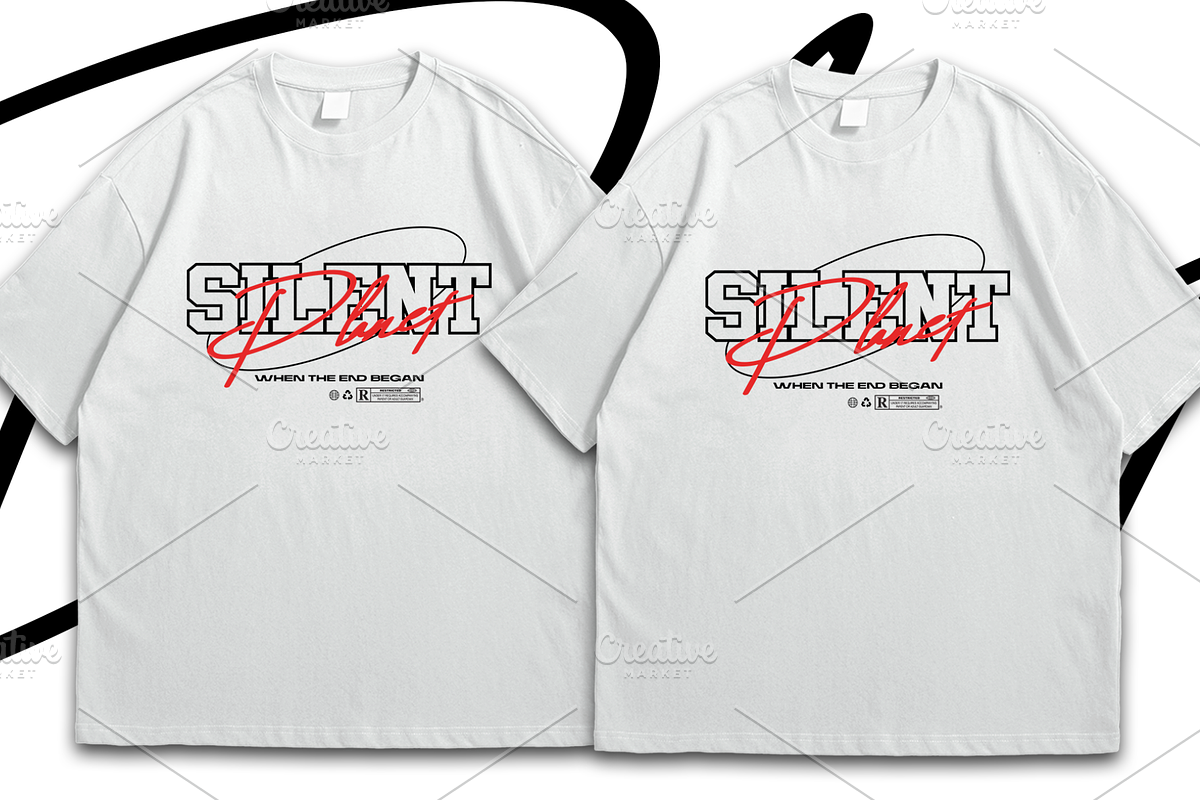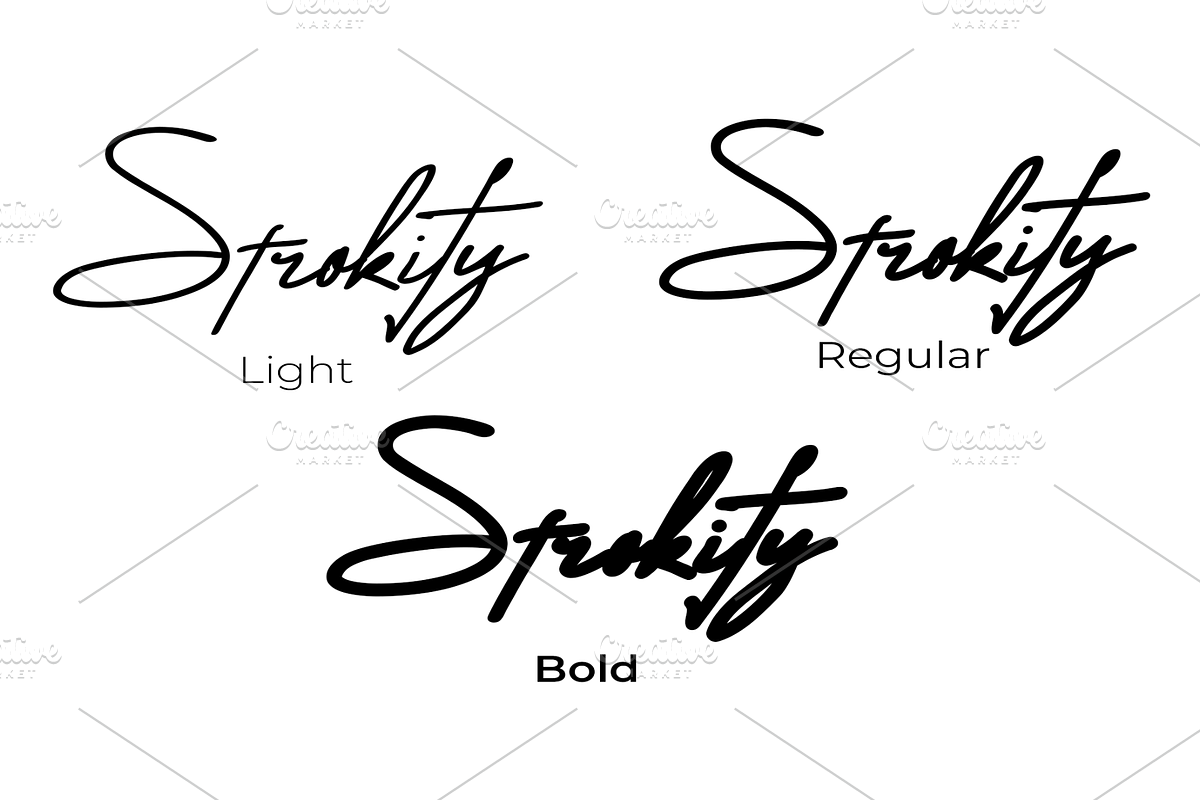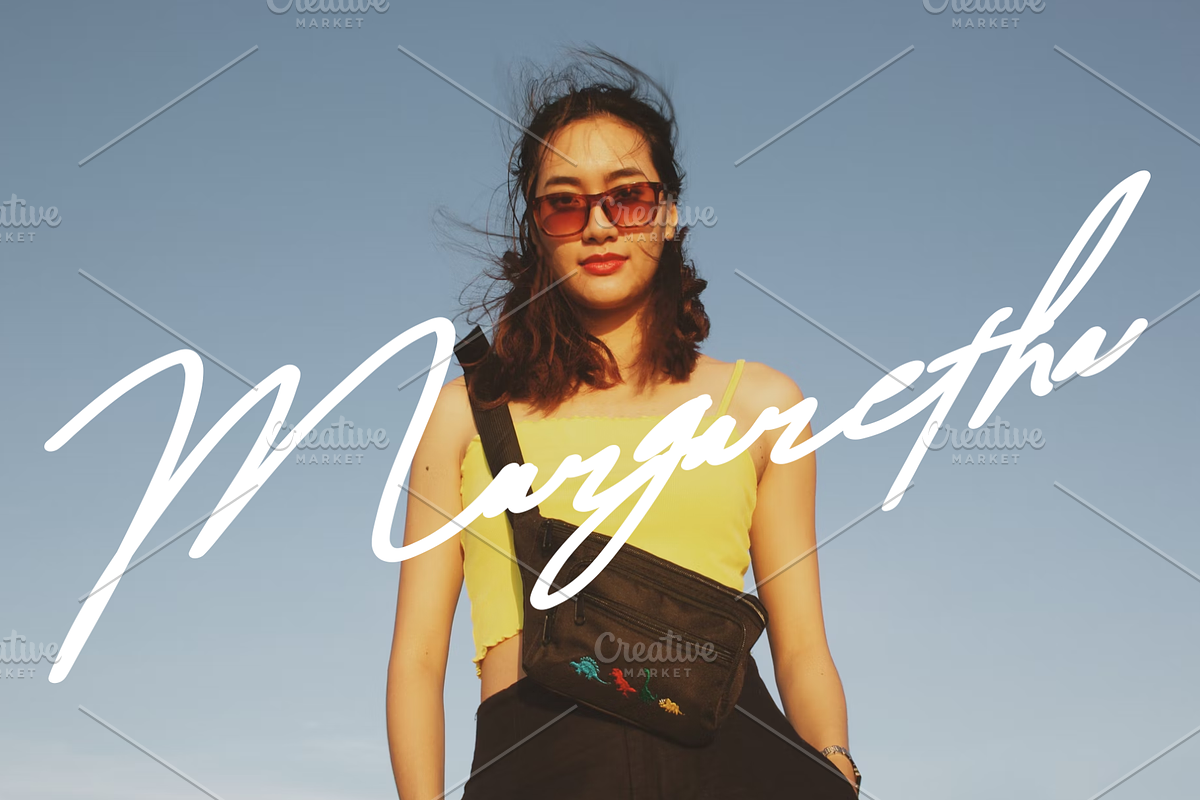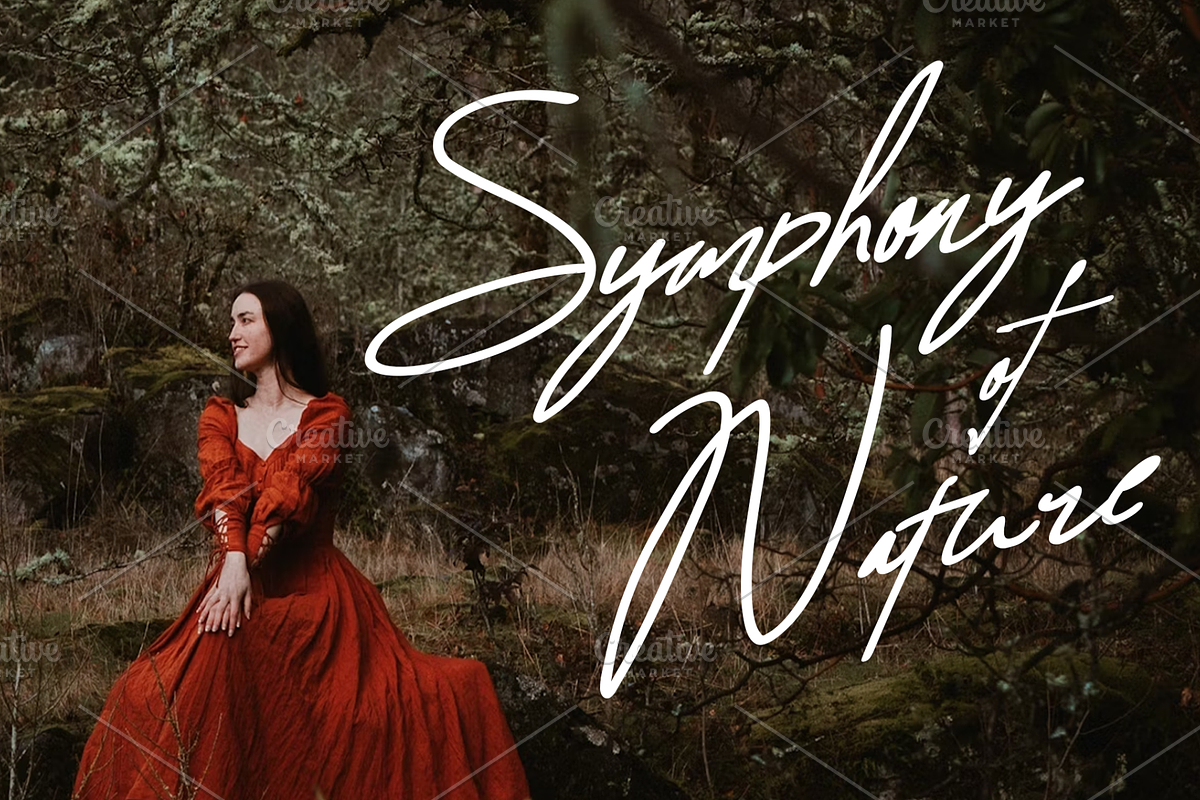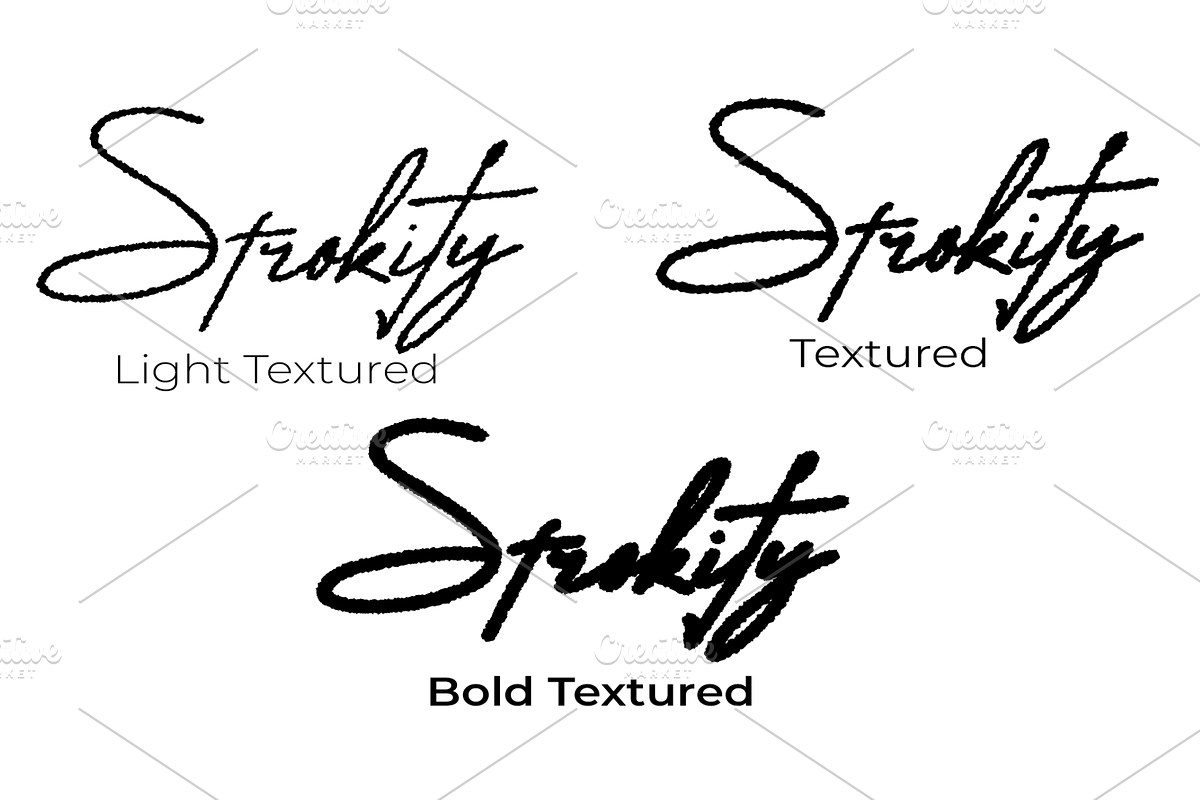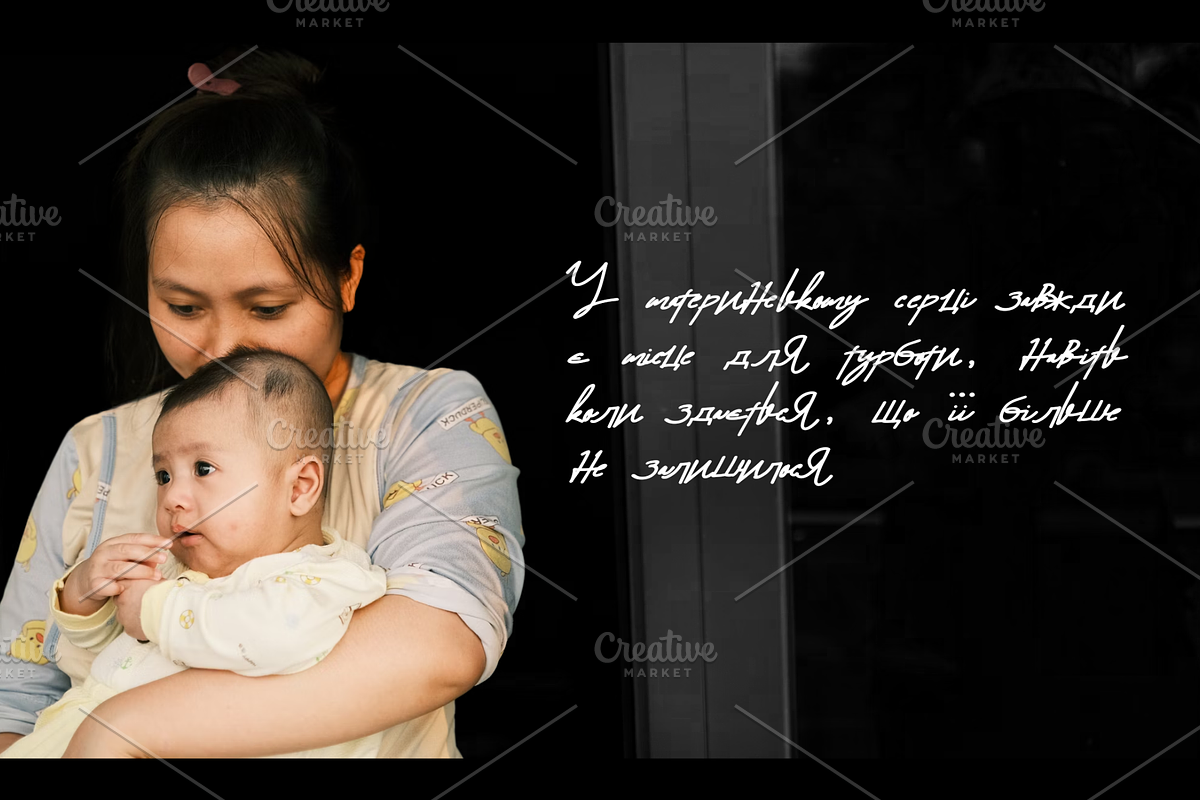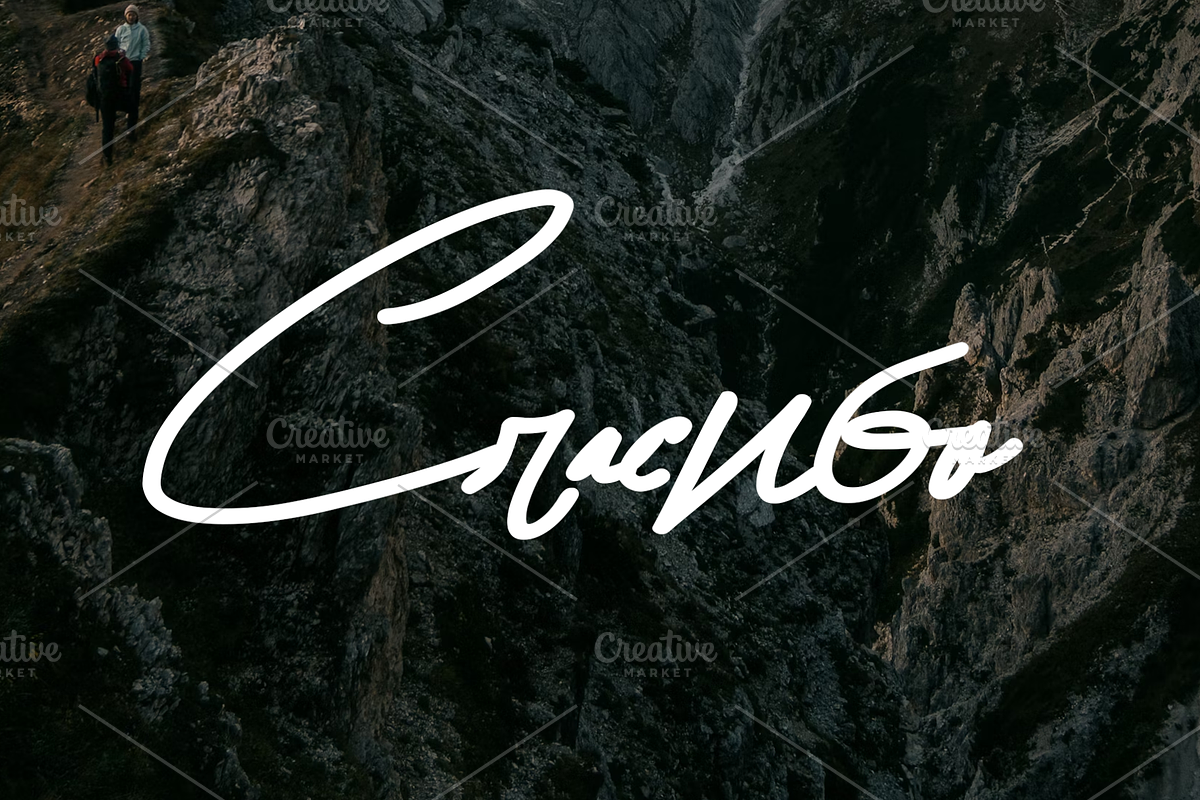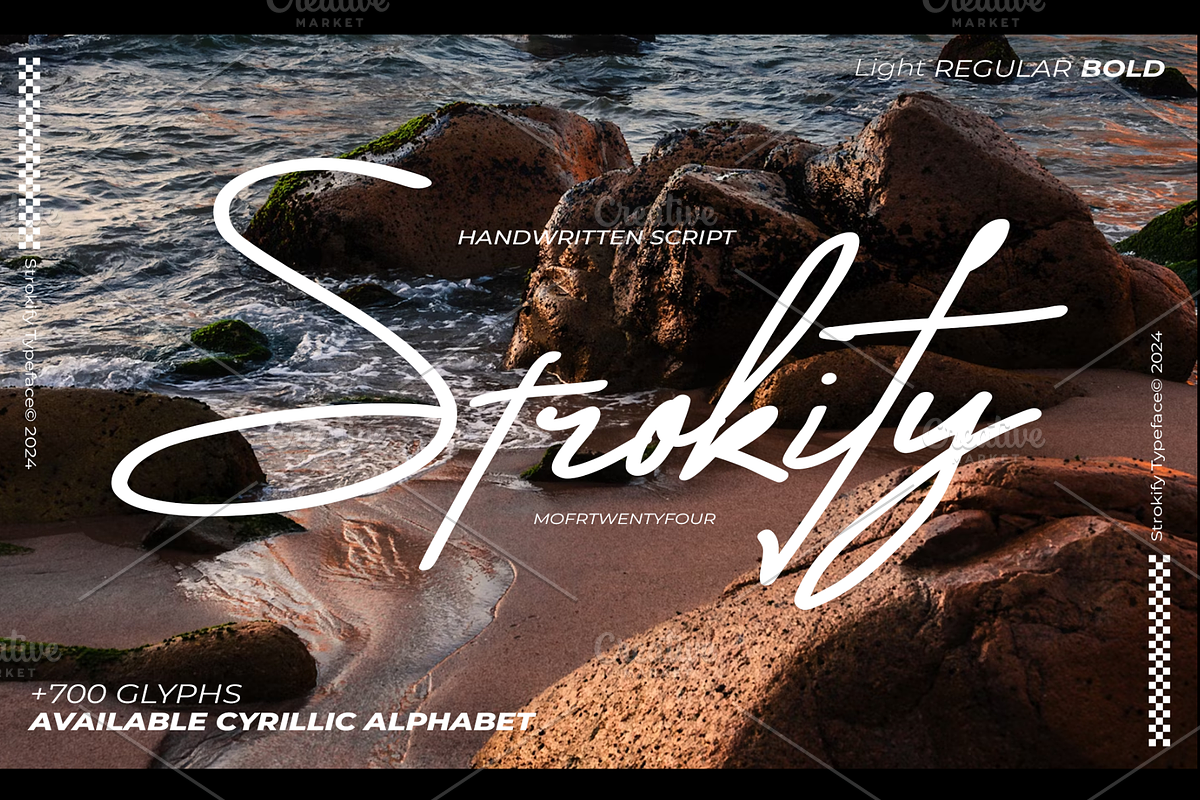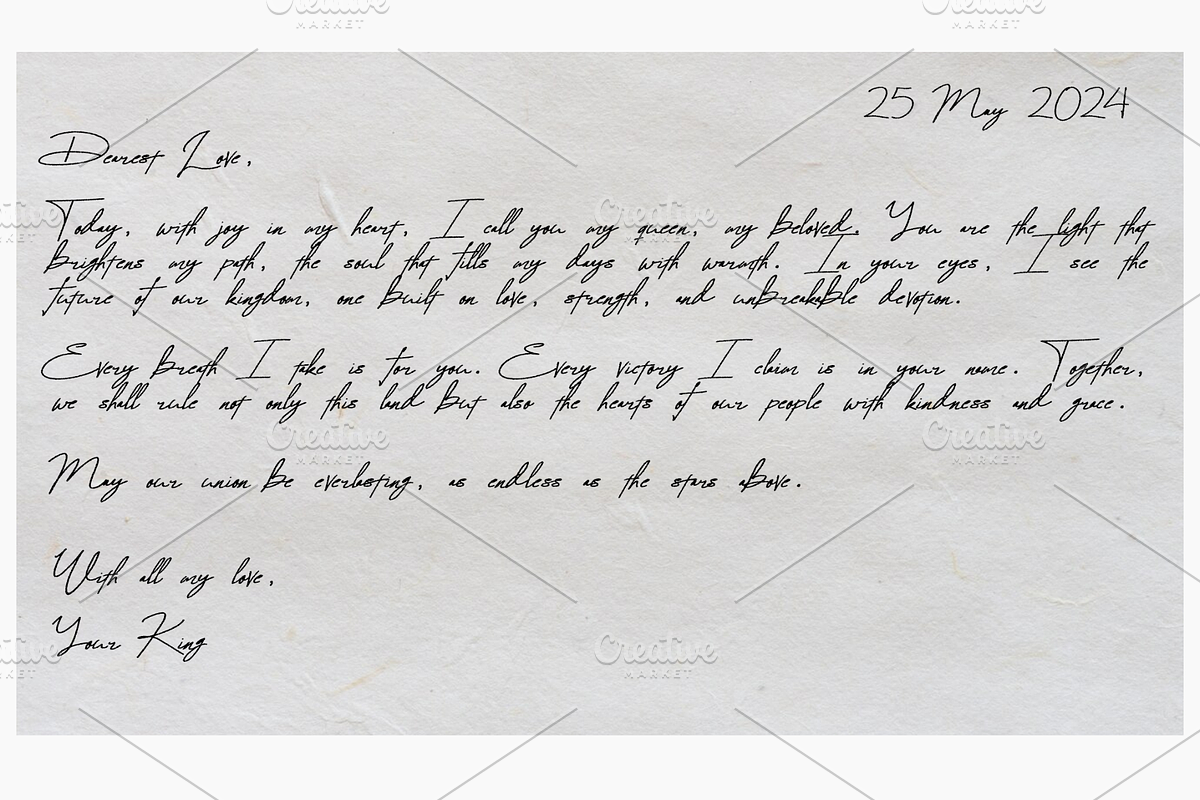
Strokify - Like Natural Handwriting
Immerse yourself in the artistic majesty of Strokify! Infused with a blend of modern vibrancy and handwritten elegance, this versatile typeface instantly infuses your designs with a unique edge. The cool, contemporary aesthetic is supported by a vast range of over 600 glyphs, accommodating a multitude of languages and functionalities. Lost in the delicacy of hand-drawn script fonts? Strokify broadens the horizon! It offers variable weights, inclusive of Cyrillic characters, expanding the possibilities. From pulsating music album covers to edgy streetwear designs, or eye-catching t-shirt graphics, its versatility knows no bounds. With Strokify at your creative forefront, your typography speaks volumes, and your designs, resonate! Capture the hearts of your audience with Strokify's distinctive allure that effortlessly accentuates your bold creative statements.